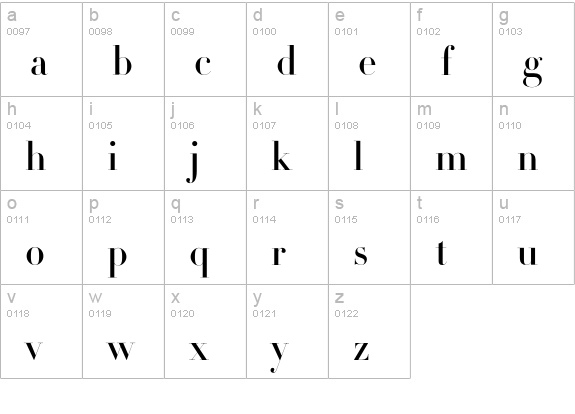
Didot-HTF-B64-Bold Font Details
Didot-HTF-B64-Bold is a strong, high-contrast variant in the Didot typeface family \xE2\x80\x94 well suited to headlines, attention-grabbing titles, and strong calls-to-action.
Didot-HTF-B64-Bold is a sophisticated and elegant typeface that exudes a sense of luxury and refinement. With its bold weight, it commands attention and adds a touch of modernity to any design project. The sharp serifs and clean lines give this font a timeless appeal that is perfect for high-end branding, editorial design, and luxury packaging. What sets Didot-HTF-B64-Bold apart is not only its stunning aesthetics but also the fact that it is available for free download at FontsMarket.com. This means that designers and creatives can easily access this premium font without any cost, making it a versatile and accessible choice for a wide range of projects. Whether you are looking to elevate your designs with a touch of sophistication or add a bold statement to your typography, Didot-HTF-B64-Bold is a versatile and stylish font that is sure to make an impact. Download it for free today and unlock the endless possibilities of this stunning typeface.